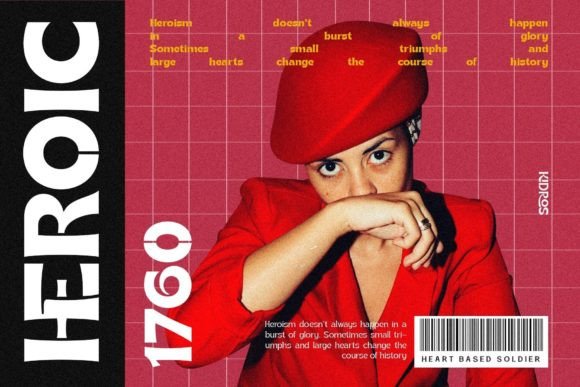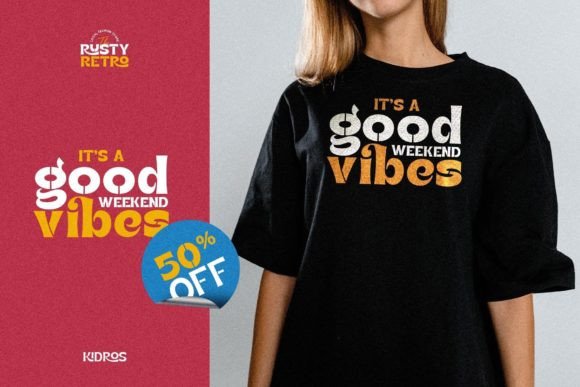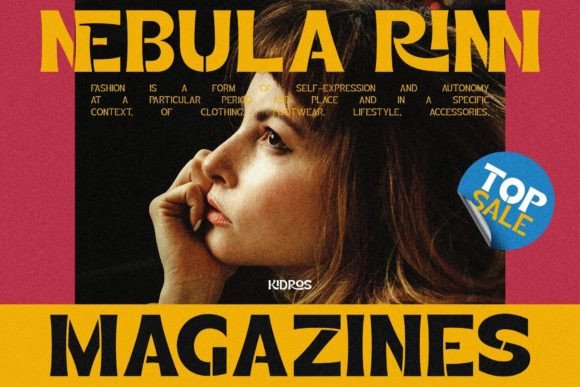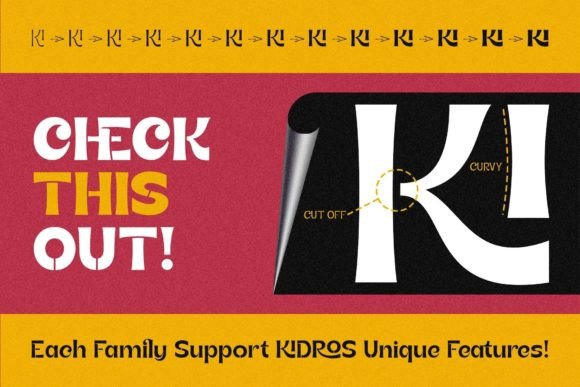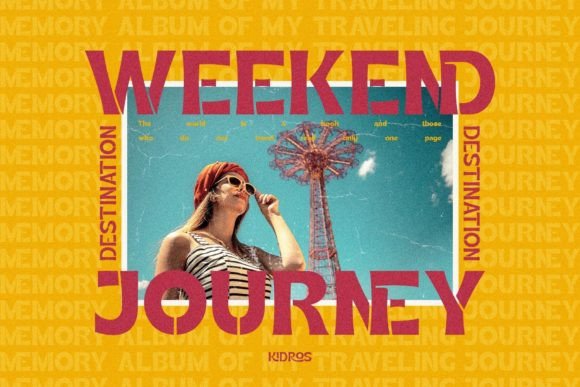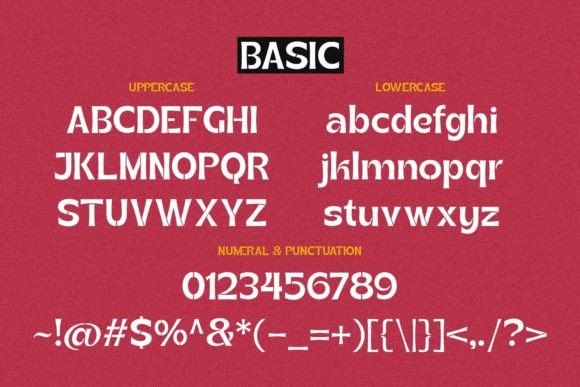
The Perfect Blend of Retro and Modern: Unlocking the Power of Kidros Font
Have you ever been stuck in a creative rut, struggling to find the perfect font to bring your vision to life? We’ve all been there – pouring over font libraries, scrolling through endless options, and still, nothing seems quite right. That’s where Kidros Font comes in, a game-changing sans serif font that’s equal parts retro and modern.
With its dynamic, stencil-inspired design, Kidros Font is the perfect addition to any project that needs a little extra oomph. Whether you’re designing a vintage-inspired poster, a bold headline, or a quirky logo, this font is sure to elevate your creation to the next level. And with its PUA encoding, you can access all of the amazing glyphs and ligatures with ease, making it a valuable tool for designers of all levels.
Kidros Font Key Features
- Unique Characteristics: Kidros Font features a unique blend of geometric and handwritten elements, making it ideal for creating visually striking and creative designs.
- Font Family: Kidros Font is part of a larger font family that includes multiple weights and styles, allowing for a wide range of design possibilities.
Kidros Font Review
Overall, I found Kidros Font to be a solid choice for a sans-serif typeface. Here’s a breakdown of its strengths and weaknesses.
- Unique aesthetic: Kidros Font offers a distinctive look that’s both modern and playful.
- High legibility: The font is clear and easy to read, even at smaller sizes.
- Good for body text: Kidros Font is well-suited for large blocks of text, making it a great choice for articles and stories.
- Works well in headings: The font’s bold weights and distinctive shapes make it a great choice for headings and titles.
- Limited font weights: Kidros Font only comes in a few weights, which may limit its versatility.
- Not ideal for small text: While the font is legible, it may not be the best choice for small text or fine print.
- No italic or script styles: If you need to use italic or script text, you may need to look elsewhere.
Overall, I think Kidros Font is a great choice for designers who want a unique and modern sans-serif typeface. While it may have some limitations, it’s a solid choice for a wide range of applications.
Kidros Font is ideal for use in titles, headings, and other display text where a unique and eye-catching font is desired. It is particularly well-suited for use in creative projects, such as brochures, posters, and infographics.
To get the most out of Kidros Font, try using it in combination with other creative elements, such as bold colors and graphics. You can also experiment with different font sizes and styles to create a visually appealing design.